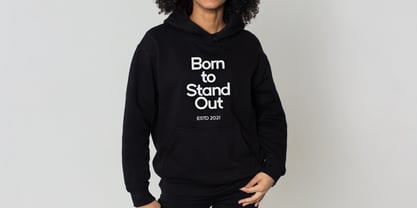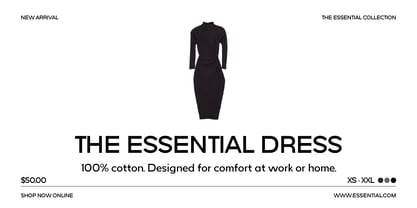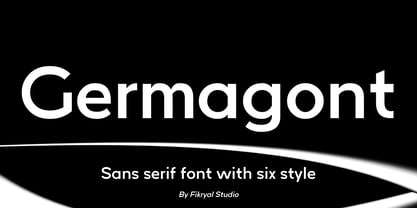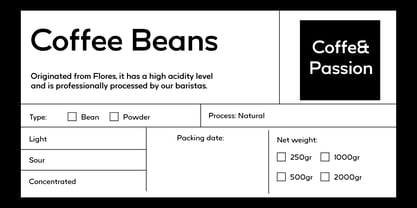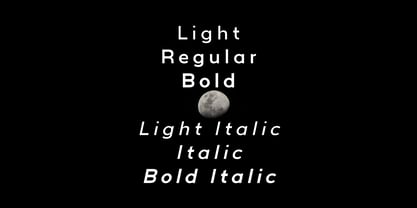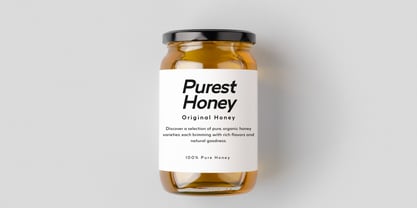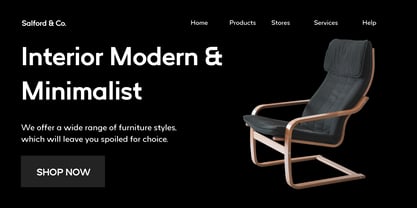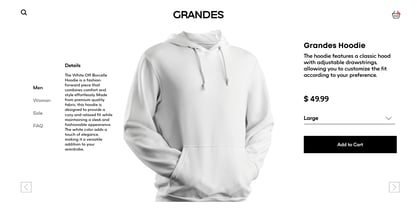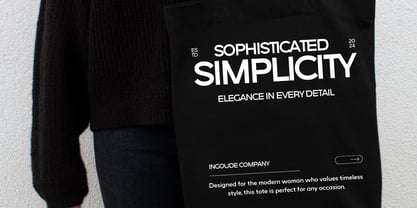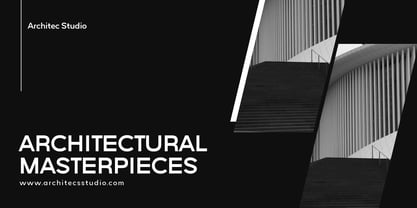
Germagont
The Germagont Font Family was designed by Muhammad Fikry and published by Fikryal. Germagont contains 6 styles and family package options. More about this family
Germagont is a modern sans serif font family designed to bring elegance, clarity, and versatility to your creative projects. With its six stylesLight, Light Italic, Regular, Italic, Bold, and Bold Italic – Germagont adapts effortlessly to a variety of design needs, from bold branding to sleek editorial layouts.
Crafted with precision, this font balances minimalism and sophistication, making it the perfect choice for designers seeking a clean yet distinctive typeface. Whether you’re creating logos, magazine layouts, websites, packaging, or corporate identities, Germagont ensures a polished and professional result.
Its multilingual support expands its usability, making it an excellent option for global projects. The seamless blend of modern aesthetics and timeless appeal makes Germagont an essential addition to any designer’s toolkit.
Why Choose Germagont?
• 6 Distinct Styles – Light, Light Italic, Regular, Italic, Bold, and Bold Italic
• Modern & Minimalist – Perfect for both professional and creative projects
• Highly Versatile – Ideal for branding, web design, packaging, editorial layouts, and more
• Excellent Readability – Balances aesthetics with legibility for both print and digital use
• Multilingual Support – Designed for global applications